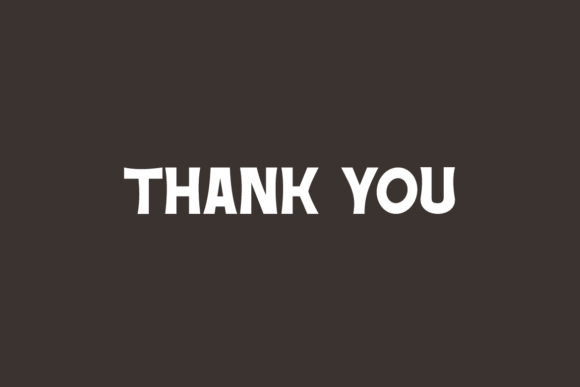
The Ultimate Guide to Converse Worvers Font: Adding Playfulness to Your Designs
I’ll never forget the time I was working on a children’s activity book project, and I just couldn’t find the right font to bring the illustrations to life. The client wanted something playful, yet authentic, and I was determined to deliver. That’s when I stumbled upon Converse Worvers Font, and it was love at first sight! 💕
Converse Worvers is a cute and colorful display font that embodies playfulness and authenticity, making it the perfect choice for any children activity or school project. In this article, we’ll dive into the world of Converse Worvers, exploring its features, how to use it, and what makes it so special.
An Honest Review of Converse Worvers Font
What I Love About Converse Worvers ✨
- ✅ Playful and Colorful: Converse Worvers is a vibrant font that adds a pop of color to any design.
- ✅ Chunky Lettering: The font’s chunky lettering makes it perfect for display purposes, adding a fun and playful touch to any design.
- ✅ Easy to Read: Despite its playful nature, Converse Worvers is surprisingly easy to read, even at smaller sizes.
- ✅ Versatile: This font is perfect for a wide range of projects, from children’s activity books to school projects, posters, and more.
- ⚠️ Limited Use Cases: While Converse Worvers is perfect for display purposes, it may not be the best choice for body text or longer paragraphs.
- ⚠️ Not Suitable for Formal Designs: This font is playful and fun, making it unsuitable for formal designs or projects that require a more professional tone.
The Backstory of Converse Worvers Font
Converse Worvers Font was designed with playfulness and authenticity in mind. The font’s creator wanted to create a font that would bring a smile to people’s faces and add a touch of fun to their designs. With its chunky lettering and colorful personality, Converse Worvers is the perfect choice for any project that requires a playful and creative touch.
Q: What is Converse Worvers Font?
A: Converse Worvers Font is a cute and colorful display font designed for creative projects and designs.
Q: Is Converse Worvers Font suitable for body text?
A: No, Converse Worvers Font is best suited for display purposes and may not be suitable for body text or longer paragraphs.